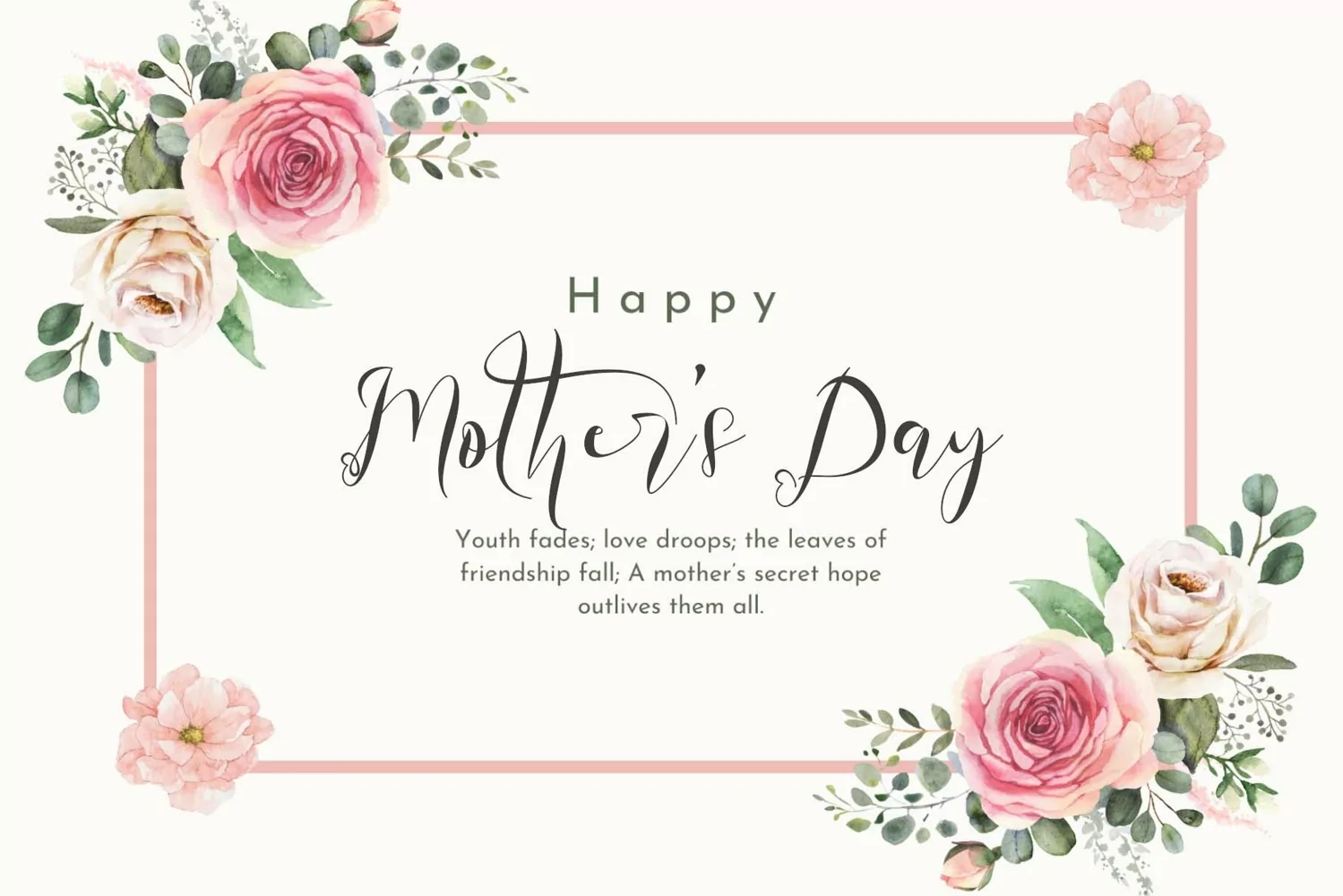
"Heart Mother" is a unique and beautiful handwritten font. This font is equipped with lowercase, uppercase, ligatures, numerals, punctuation, and multilingual support. Suitable for weddings, engagements, stickers, posters, prints, invitations, and others.